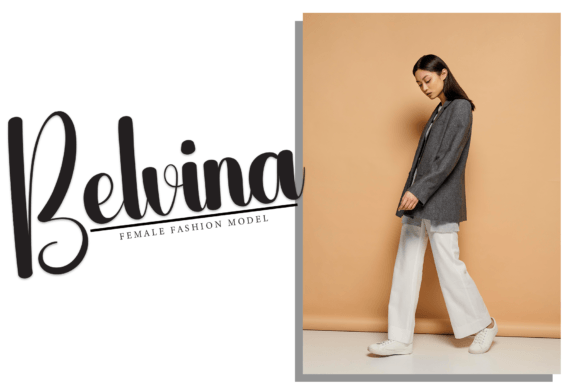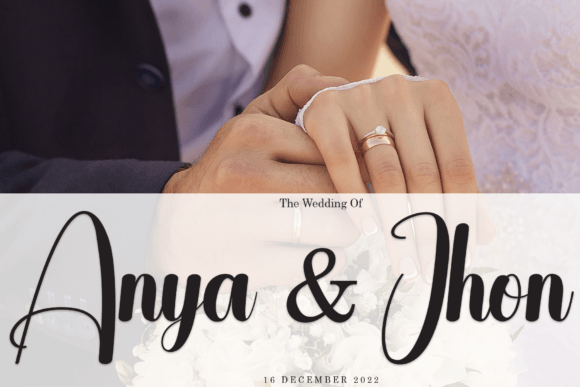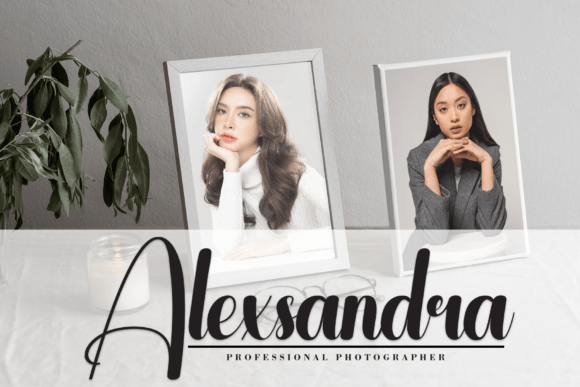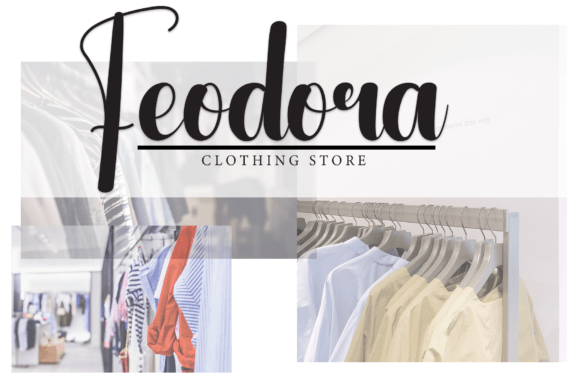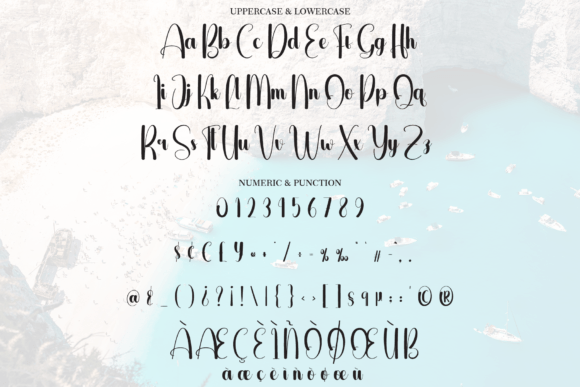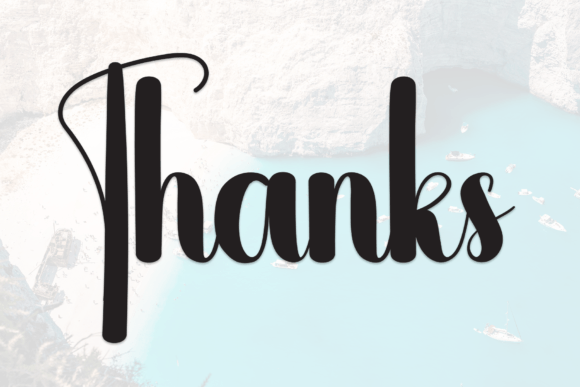
Introducing Bayfresh Font: The Sweet and Friendly Handwritten Font for Your Design Needs
Are you looking for a font that can add a touch of warmth and personality to your designs? Look no further than Bayfresh Font! This sweet and friendly handwritten font is perfect for creating beautiful wedding invitations, cards, and other designs that require a fun and playful touch. In this article, we’ll take a closer look at Bayfresh Font, its features, and how you can use it to elevate your designs.
What is Bayfresh Font?
Bayfresh Font is a modern handwritten font that exudes a sense of freshness and neatness. Its sweet and friendly style makes it perfect for a wide range of design applications, from wedding invitations and cards to social media graphics and blog posts. The font’s clean lines and simple letterforms ensure that it remains legible and easy to read, even at smaller sizes.
Key Features of Bayfresh Font
• Sweet and Friendly Style: Bayfresh Font has a warm and inviting style that is sure to capture the attention of your audience.
• Fresh and Neat: The font’s clean lines and simple letterforms give it a fresh and neat appearance that is perfect for modern designs.
• Handwritten: Bayfresh Font has a beautiful handwritten feel that adds a touch of personality to your designs.
• Legible: The font’s clear and simple letterforms ensure that it remains legible and easy to read, even at smaller sizes.
Use Cases for Bayfresh Font
Bayfresh Font is a versatile font that can be used for a wide range of design applications. Here are some use cases where Bayfresh Font shines:
• Wedding Invitations: Bayfresh Font is perfect for creating beautiful wedding invitations that are both elegant and playful.
• Cards: The font’s sweet and friendly style makes it ideal for creating greeting cards for special occasions.
• Social Media Graphics: Bayfresh Font can add a touch of personality to your social media graphics, making them more engaging and shareable.
• Blog Posts: The font’s clean lines and simple letterforms make it perfect for use in blog posts, adding a touch of warmth and personality to your content.
Tips for Using Bayfresh Font
Here are some tips for getting the most out of Bayfresh Font:
• Pair it with Other Fonts: Bayfresh Font pairs well with other fonts, so don’t be afraid to experiment with different combinations.
• Use it for Headings: Bayfresh Font is perfect for use in headings, adding a touch of personality to your designs.
• Experiment with Colors: The font’s clean lines and simple letterforms make it perfect for use with a wide range of colors.
In conclusion, Bayfresh Font is a sweet and friendly handwritten font that is perfect for adding a touch of warmth and personality to your designs. Its fresh and neat appearance, combined with its legibility and versatility, make it a great choice for designers and crafters. Whether you’re creating wedding invitations, cards, or social media graphics, Bayfresh Font is sure to elevate your designs and capture the attention of your audience.